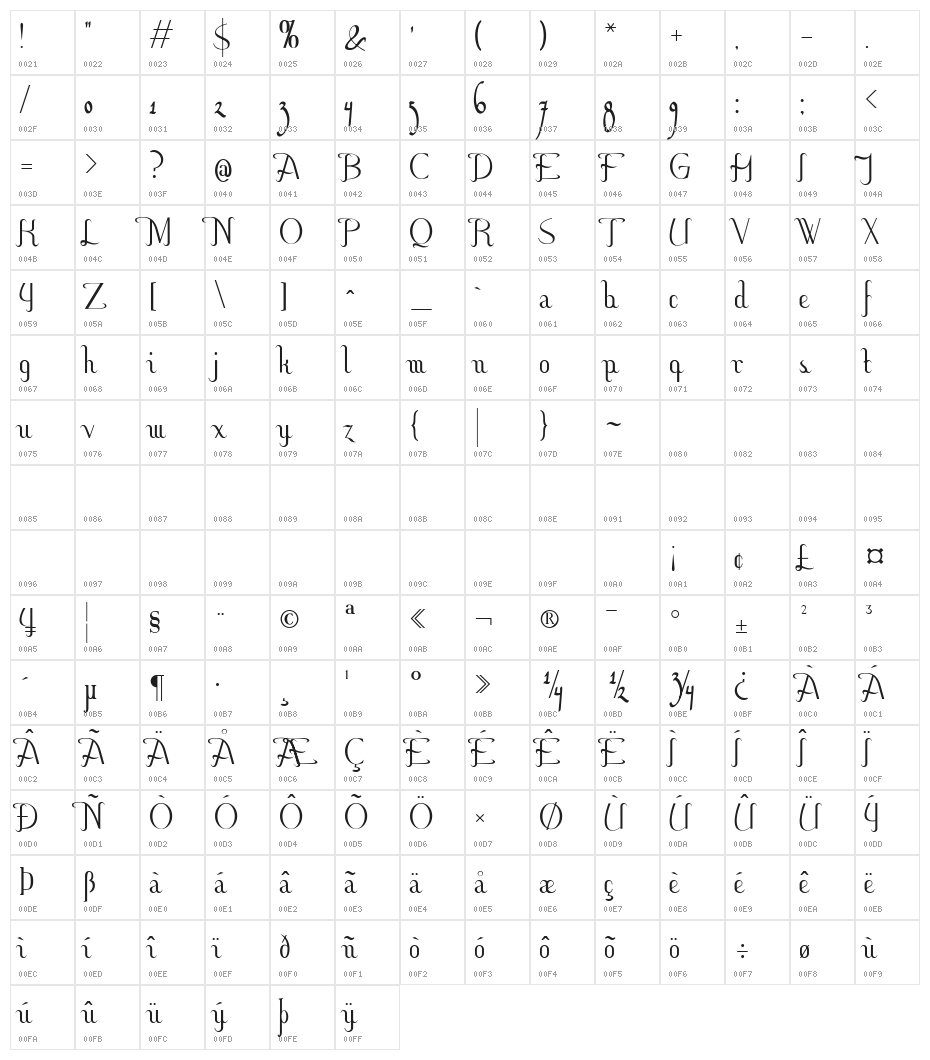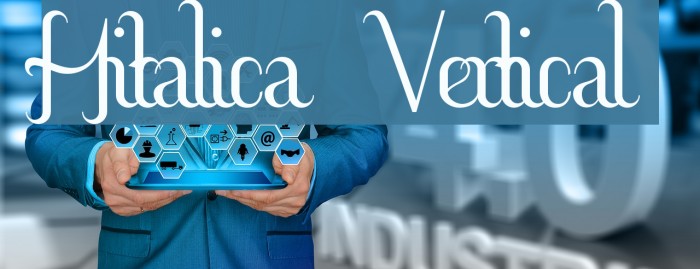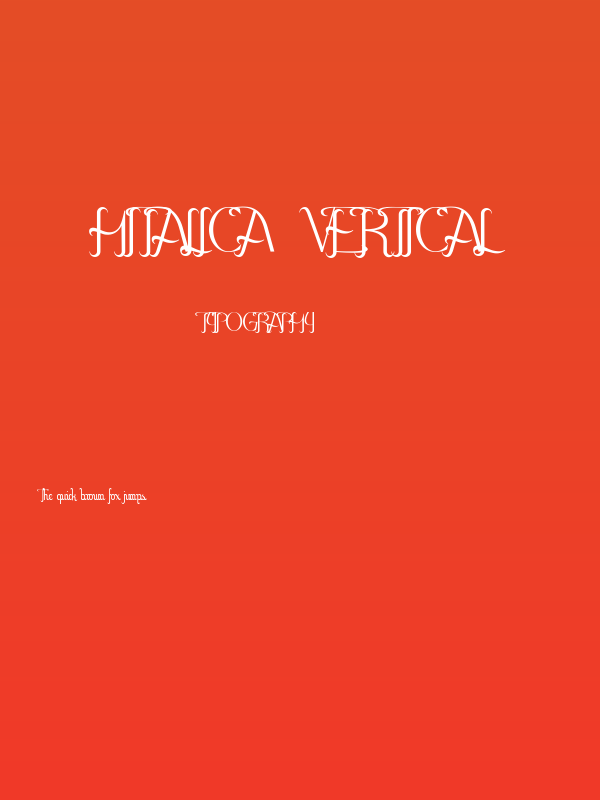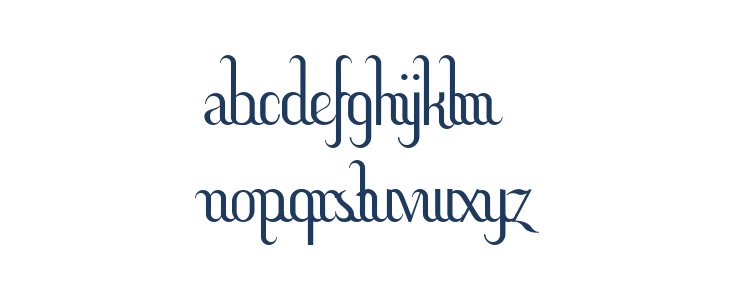
Hitalica Vertical Font
Hitalica Vertical Description
This font features an elegant and sophisticated design with a strong vertical emphasis. The characters are elongated and exhibit a graceful flow, reminiscent of classic calligraphy. The uppercase letters are particularly striking, with intricate curves and loops that add a touch of refinement. The lowercase letters maintain a consistent style, offering a harmonious blend with the uppercase. Numbers and special characters follow the same aesthetic, ensuring a cohesive look throughout. This font's unique style makes it suitable for projects that require a touch of elegance and sophistication.
| Proposed Projects | Ideal for wedding invitations, luxury branding, high-end product packaging, and elegant editorial design. |